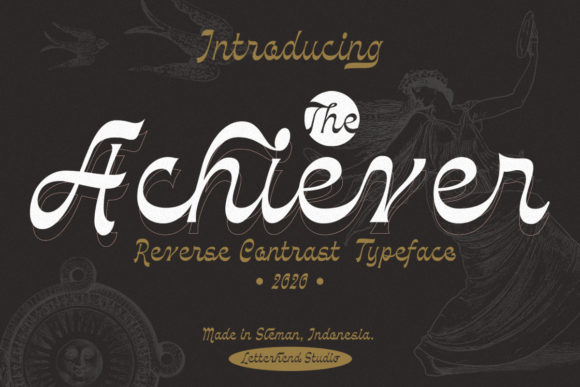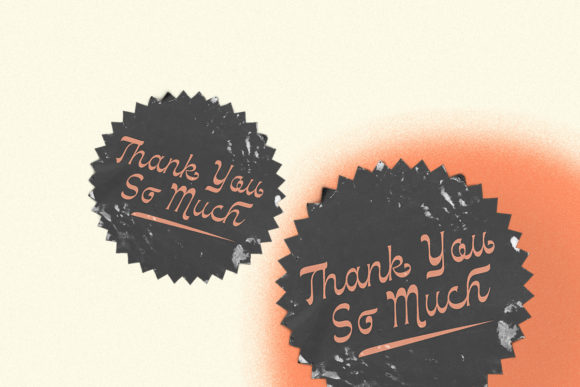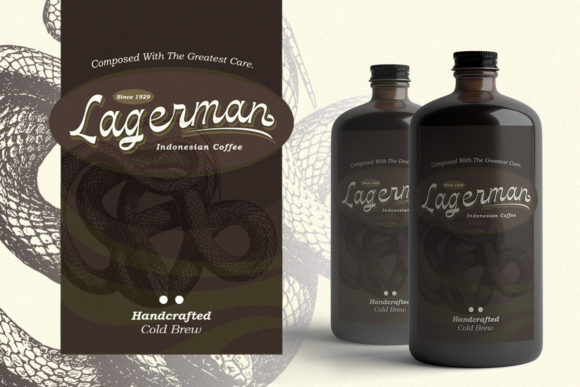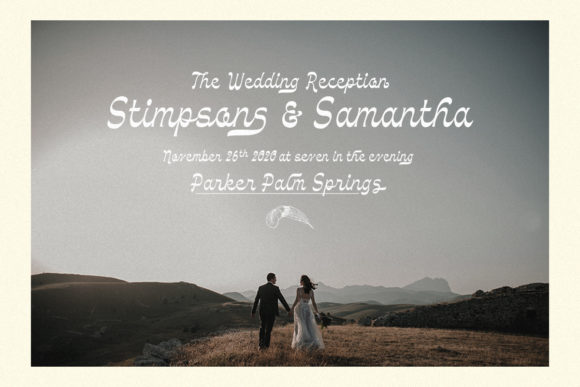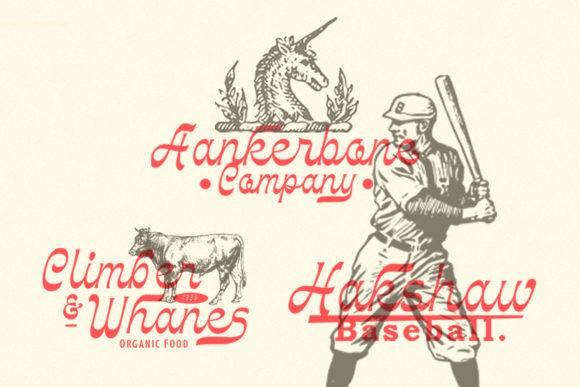
About The Achiever Font
The Achiever is an incredibly beautiful and vintaged style handwritten font. Elegant and unique, this font looks absolutely remarkable on a variety of creations!